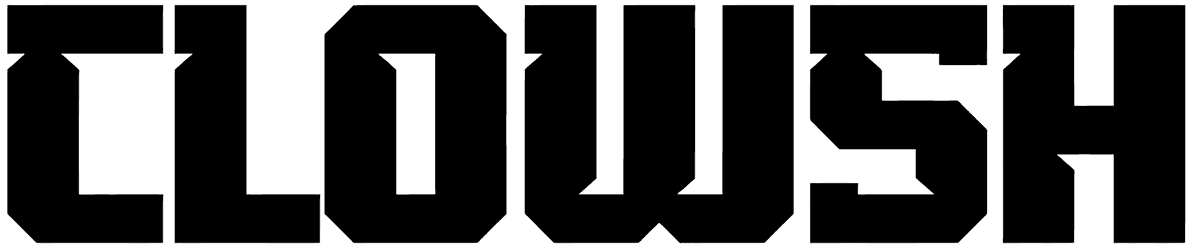
Clowsh Font
Give this techno font a shot to stick out a mile from your rivals and grow your traffic amazingly. Clowsh that just covers uppercase letters provides the incredible chance to bring futuristic and authority vibes to your typography.
The geometric letterform of this sci-fi font imports it into a turning point for bringing out your next project seriously. Certainly, the lack of numbers and lowercase isn’t a serious problem at all. Pick other techno fonts from our library to utilize alongside this one.